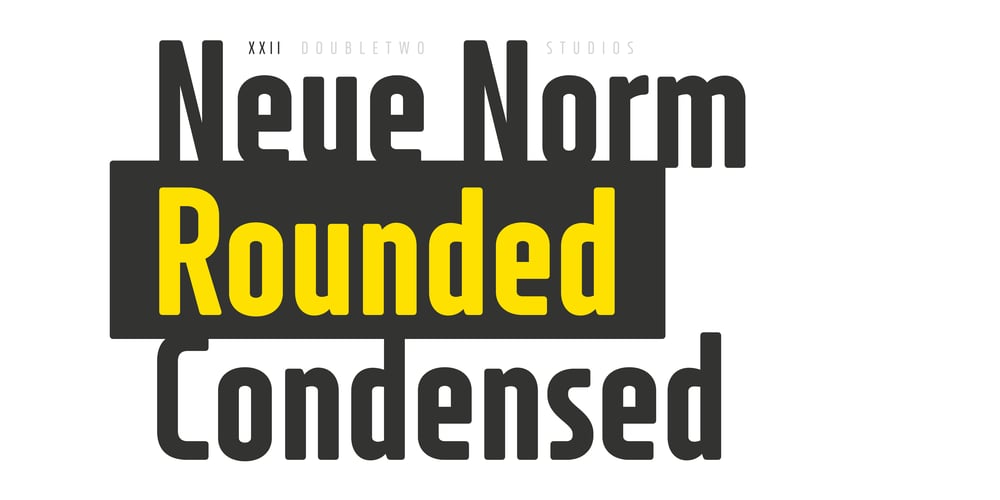
XXII Neue Norm Rounded Font Family was designed by Lecter Johnson and published by Doubletwo Studios. XXII Neue Norm Rounded contains 36 styles and family package options. Based on the XXII Neue Norm this rounded version lives on the the powerful, straight and technical appearance of a constructed low contrast sans serif typeface. The carefully rounded corners simply bring up a subtile bit of softness. XXII Neue Norm Rounded comes along in 9 styles and its fitting italics. See also Behance projekt.